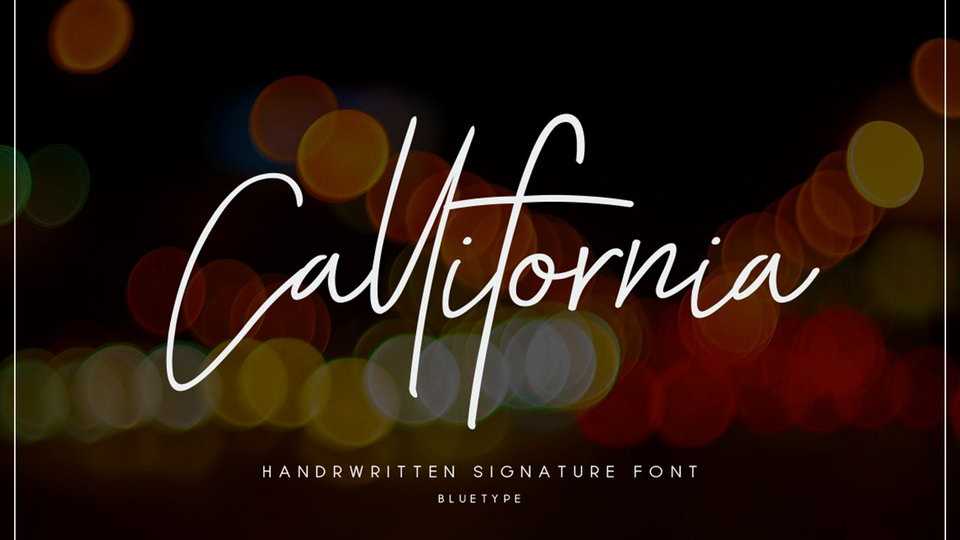
Download Callifornia font, a stylish casual signature script. Callifornia font is perfect for branding projects, logo, wedding designs, social media posts, advertisements, photography watermark and any projects that need elegant feel.